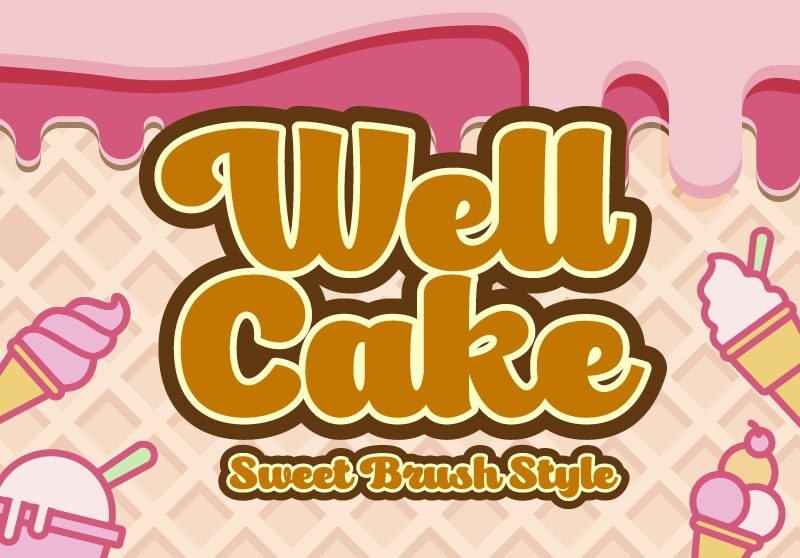
Well Cake, the groovy creation of Sign Studio, is a display font that will add a touch of retro charm to your projects. With its extra-bold weight and semi-expanded width, this font demands attention and is perfect for eye-catching headlines, posters, and album covers. Its playful curves and unique character make it suitable for a variety of creative endeavors such as branding for vintage-inspired fashion lines or designing funky party invitations. Let Well Cake take your designs to the next level with its irresistible groove and bold presence.
Well Cake
Well Cake Font Family by Sign Studio